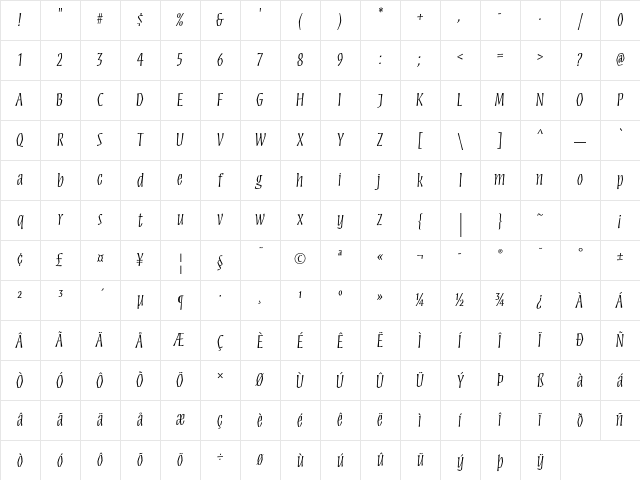
Mezz Std Light Free Font
Mezz Std Light
Designer: Michael Harvey
Design Context for Mezz Std
Mezz Std is a composed and adaptable typeface that performs quietly and consistently across a wide range of design contexts. Its slender proportions lend an understated elegance to any composition.